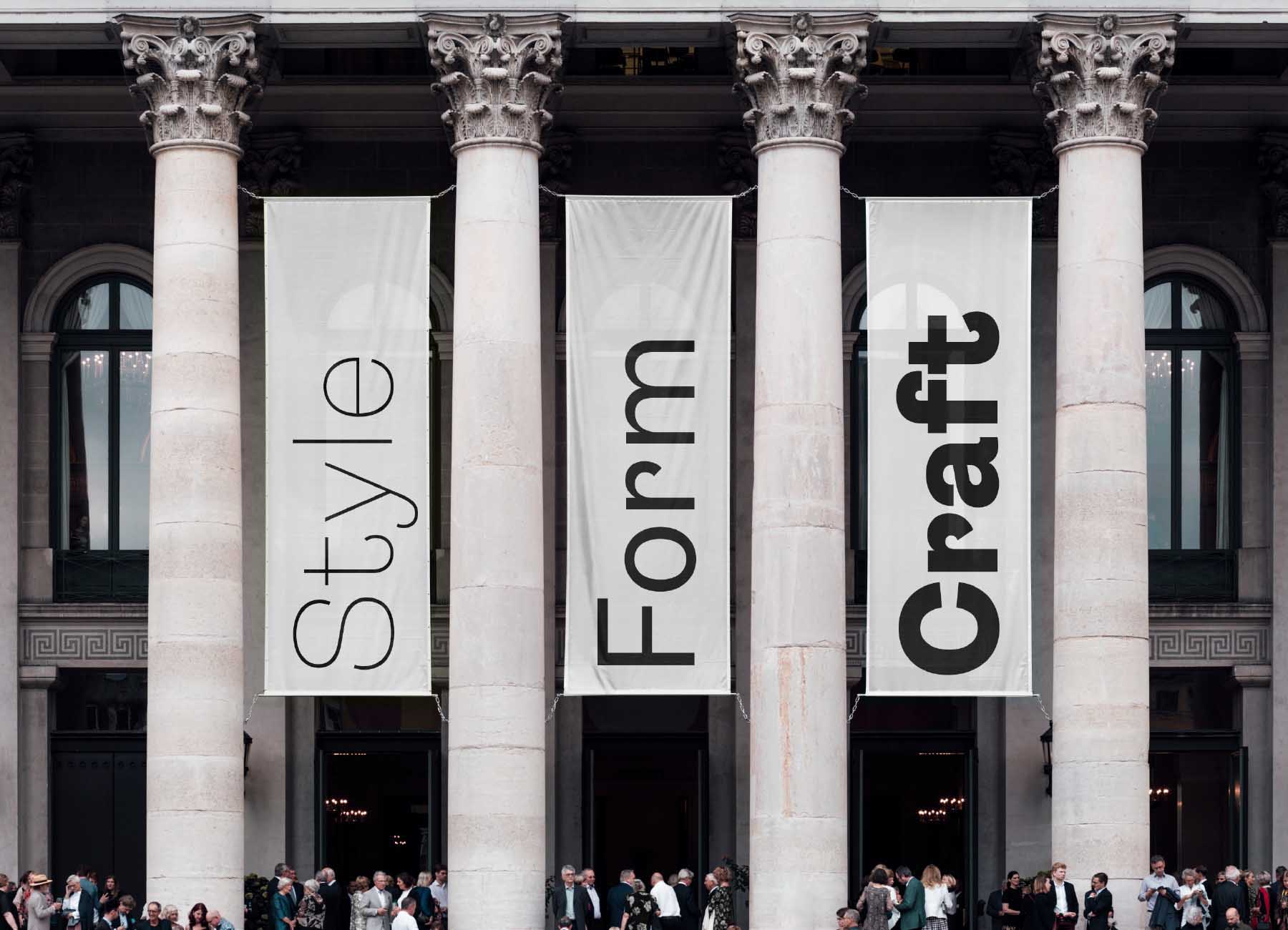
Fig Grotesk is a playful and approachable sans serif typeface.
It was originally inspired by a piece of the specimen from Amsterdam Type Foundry in late 19th century–the small size of Breede Magee Antieke, in which the terminal serif loses the thick-and-thin contrast and blend into the letterform structure which creates an affable look as if it has extra curvy terminals. This feature was converted into geometric structure in the design process.
This friendly sans serif typeface has a modern grotesque proportion feeling cleanly contemporary, while the curvy terminals add a touch of warmth and infuse the typeface with a playful personality and affable visual character. It is perfect for logos, headlines, and subheads.
The family is available in eight weights and 16 styles, including Thin, Light, Book, Regular, Medium, Semibold, Bold, Black, and their corresponding italics.